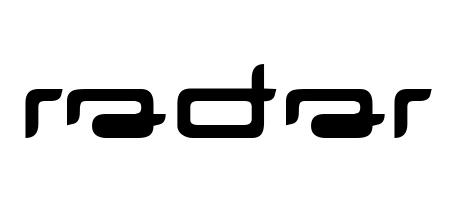
radar
Radar: A futuristic font, sleek and bold. Its angular forms evoke speed and technology, with a subtle sense of mystery. The slightly distorted lettering creates a dynamic energy, perfect for headlines, logos, and anything needing a high-tech, edgy feel. A captivating blend of style and functionality.